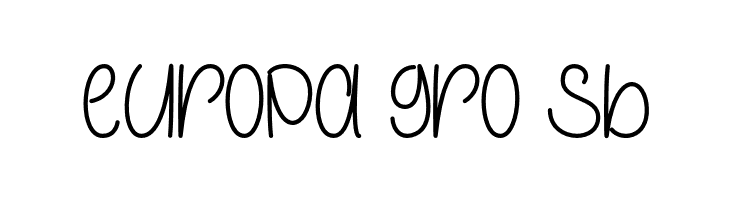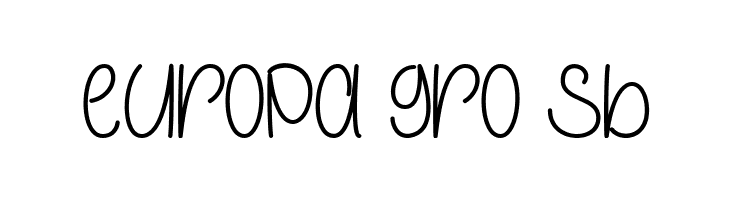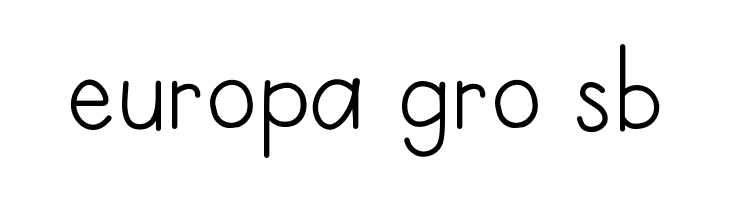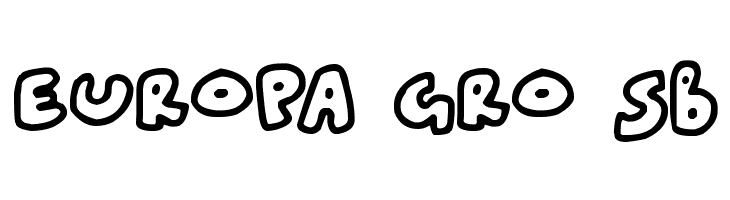
( Fonts by Darrell Flood )
A playful, bold font with a bubbly, cartoon-like appearance.
( Fonts by Misti's Fonts )
A playful, rounded font with a whimsical, handwritten style.
( Fonts by Misti's Fonts )
A playful handwritten font with smooth curves and a casual style.
( Fonts by Jen Jones )
A playful, handwritten font with rounded, consistent strokes.